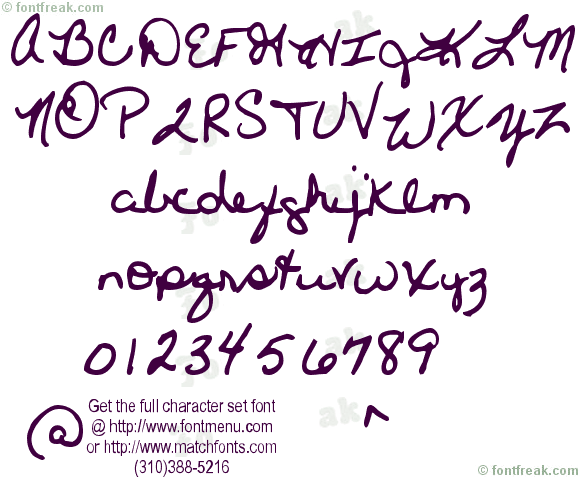
Pierre Tryout
About Pierre Tryout
The Pierre Tryout font, designed by Michel Bujardet, falls into the script category, showcasing a charming handwritten style that exudes a sense of warmth and personality. Characterized by its fluid stroke weight and gentle curves, this font captures the essence of authentic handwriting while maintaining a polished appearance. The contrast between thick and thin strokes adds a dynamic quality, enhancing its visual appeal. With ample spacing, the Pierre Tryout font ensures readability, making it a versatile choice for various design projects.
This font is particularly well-suited for use cases such as wedding invitations, where its elegant script can convey romance and intimacy. It can also enhance the aesthetic of restaurant menus, providing a personal touch that complements a cozy dining atmosphere. Additionally, Pierre Tryout works beautifully for greeting cards, helping to express heartfelt sentiments, and for creative branding, where a unique and approachable font can distinguish a small business. Graphic designers, small business owners, and content creators will find this font an invaluable asset in their toolkit.
What makes the Pierre Tryout font stand out is its perfect blend of legibility and artistic flair. It offers a distinctive handwritten look without sacrificing clarity, making it ideal for both print and digital applications. Whether you’re designing a heartfelt invitation or crafting a memorable logo, this font brings a unique charm that resonates with audiences. For those interested in exploring its potential, a Pierre Tryout font free download is available, allowing users to experience its beauty firsthand before making a commitment. Embrace the creativity and personality of Pierre Tryout to elevate your design projects.